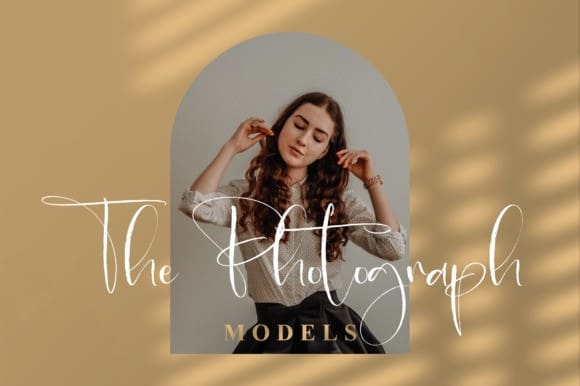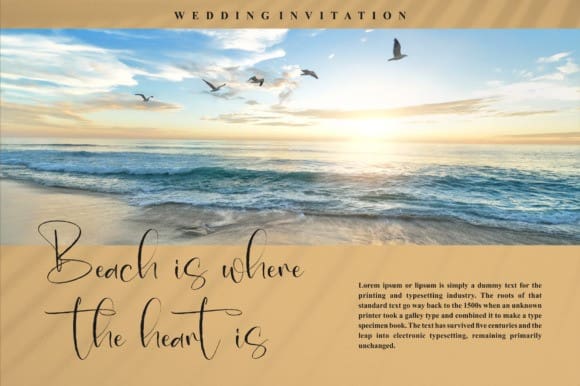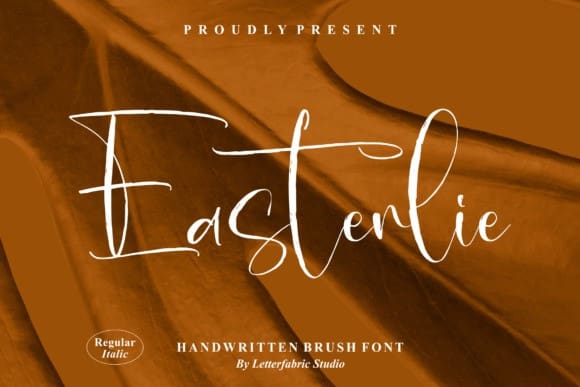
Easterlie Script Font
Easterlie Script Font, is a handwritten font that has a modern yet whimsical style and it will undoubtedly immerse your designs into a magical world. Use this font for your designs and explore its endless possibilities.